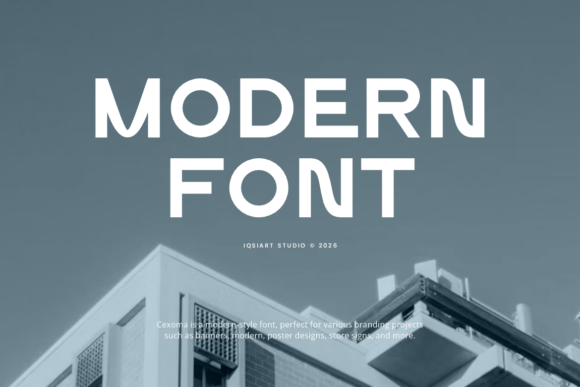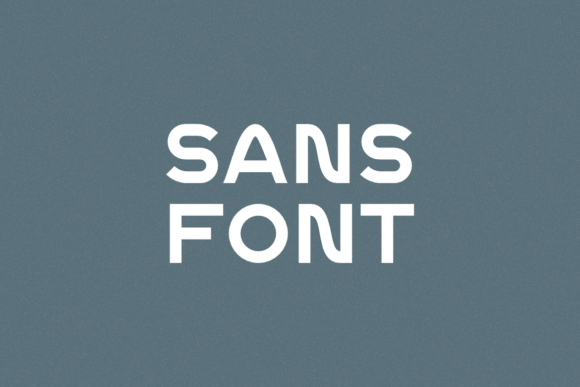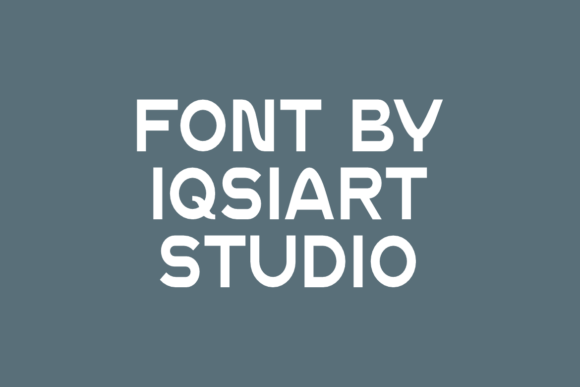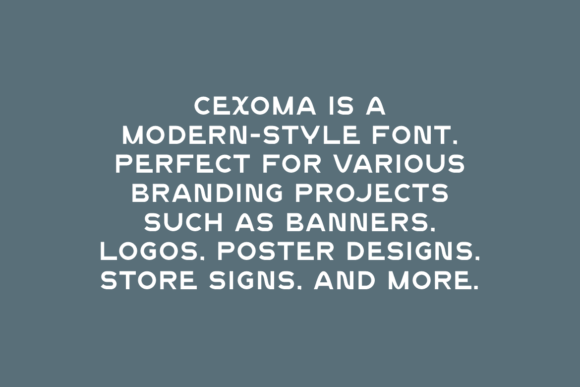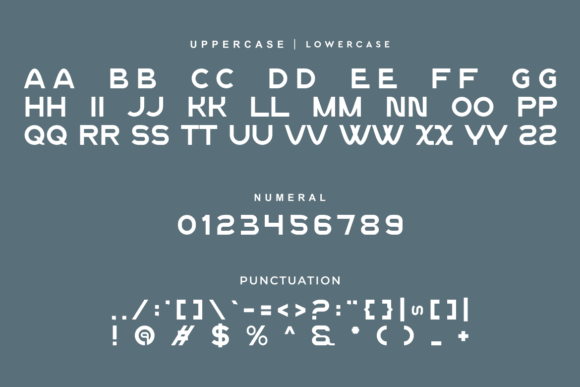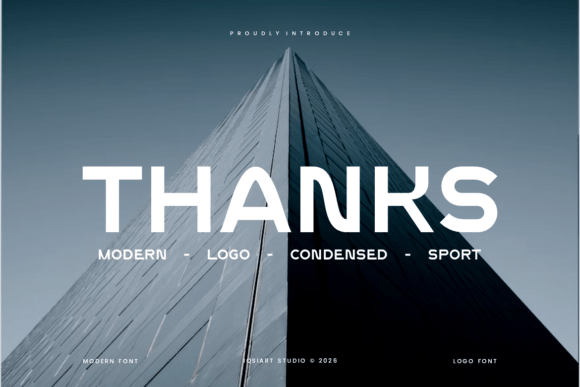
Cexoma Font: A Bold and Authentic Display Typeface for Your Design Needs
Are you looking for a font that can add a touch of boldness and authenticity to your designs? Look no further than the Cexoma Font. This display typeface is perfect for a variety of design needs, from creating stunning headlines to crafting eye-catching logos. In this article, we’ll take a closer look at the Cexoma Font, its features, and how you can use it to elevate your designs.
What is Cexoma Font?
Cexoma Font is a bold and authentic display typeface designed to make a statement. Its unique and stylish design makes it perfect for use in a variety of design projects, from print to digital. Whether you’re creating a logo, brochure, or website, the Cexoma Font is sure to grab attention and leave a lasting impression.
Key Features of Cexoma Font
The Cexoma Font comes with a range of features that make it a versatile and practical choice for designers. Some of its key features include:
• Bold and Authentic Design: The Cexoma Font has a bold and authentic design that is sure to stand out in any design project.
• Wide Range of Themes and Font Styles: The Cexoma Font comes in a wide range of themes and font styles, making it easy to find the perfect style for your project.
Tips for Using Cexoma Font
Here are some tips for using the Cexoma Font:
• Use it for Headlines: The Cexoma Font is perfect for use in headlines, as its bold and authentic design is sure to grab attention.
• Experiment with Different Sizes: The Cexoma Font looks great in a variety of sizes, so don’t be afraid to experiment and find the perfect size for your design.
• Pair it with Other Fonts: The Cexoma Font can be paired with other fonts to create a unique and stylish design.
The Cexoma Font is a bold and authentic display typeface that is perfect for a variety of design needs. Its unique and stylish design makes it sure to grab attention and leave a lasting impression. With its wide range of themes and font styles, ease of use, and high-quality files, the Cexoma Font is a must-have for any designer or craftsperson. So why wait? Visit our profile to explore more and find the perfect style for your project.